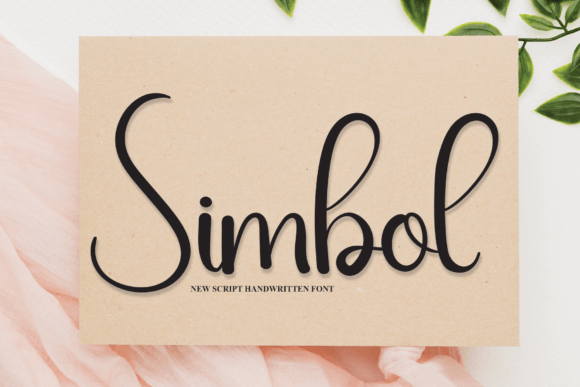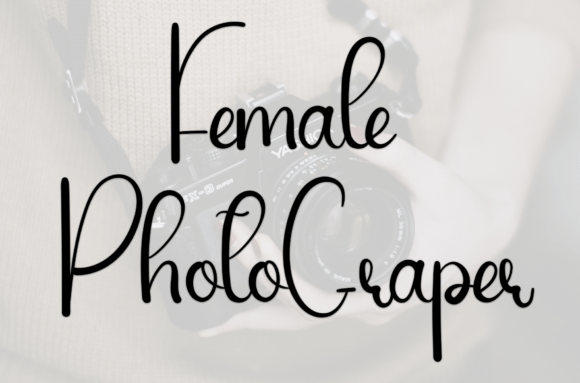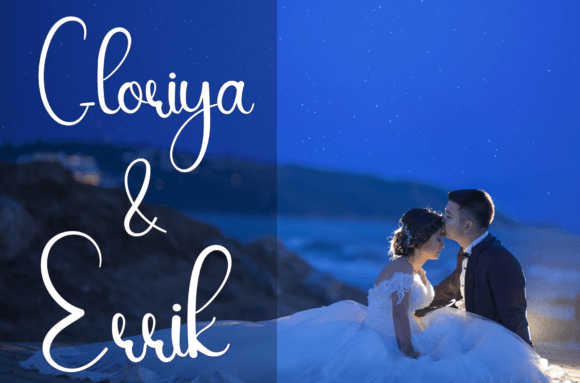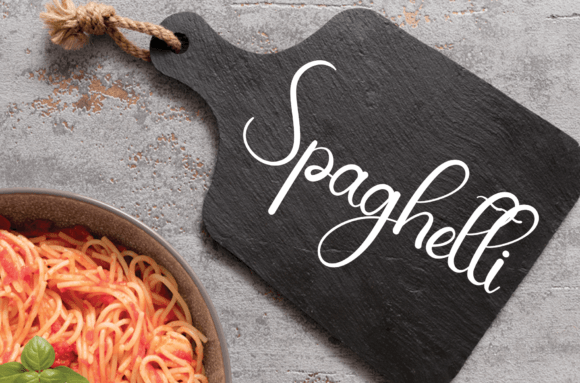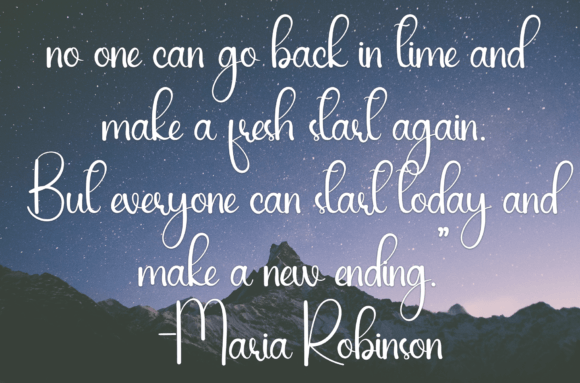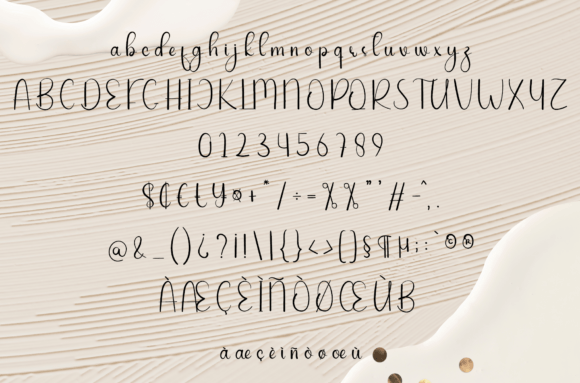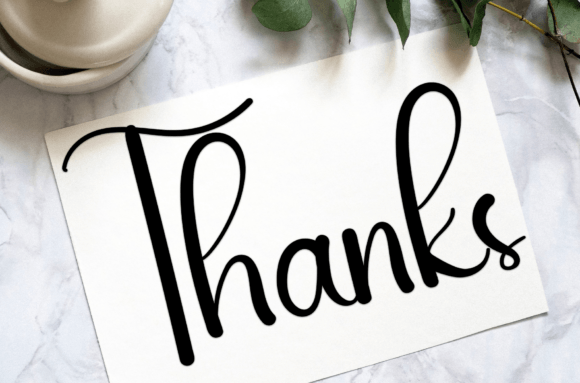
Simbol Font
A Sweet and Playful Handwritten Typeface
Simbol Font is a sweet and friendly handwritten script that brings a playful and relaxed vibe to your designs. With its charming and inviting style, this font is perfect for various projects. It is especially suitable for designs that require a touch of sweetness and warmth.
Perfect for Wedding Invitations
When it comes to wedding invitations, Simbol Font adds a delightful and personal touch. The font’s friendly and handwritten appearance creates an intimate and joyful atmosphere. It sets the tone for a special and memorable celebration, ensuring your invitations are unique and full of love and happiness.
Great for Greeting Cards
For greeting cards, Simbol Font makes your designs extra special and endearing. Whether you’re designing a birthday card, thank you note, or just a friendly greeting, this font’s sweet and relaxed letterforms convey a warm and heartfelt message. It adds a touch of playfulness and cheerfulness, making the recipient feel cherished and appreciated.
Ideal for Branding Materials
Simbol Font also works wonderfully for a variety of other designs. Its friendly and approachable style is ideal for branding materials such as logos and business cards. Whether you’re designing a logo or a business card, Simbol creates a welcoming impression. It can also be used for quotes, posters, and social media graphics to add a whimsical personality and charm to your messages.
Versatile and Easy to Use
Overall, Simbol Font is a versatile and lovely handwritten font that brings a sweet and friendly vibe to your designs. Whether you’re working on wedding invitations, cards, branding materials, or other projects, this font adds a touch of joy and warmth. Let Simbol Font infuse your designs with its playful charm and create memorable designs that leave a lasting impression.